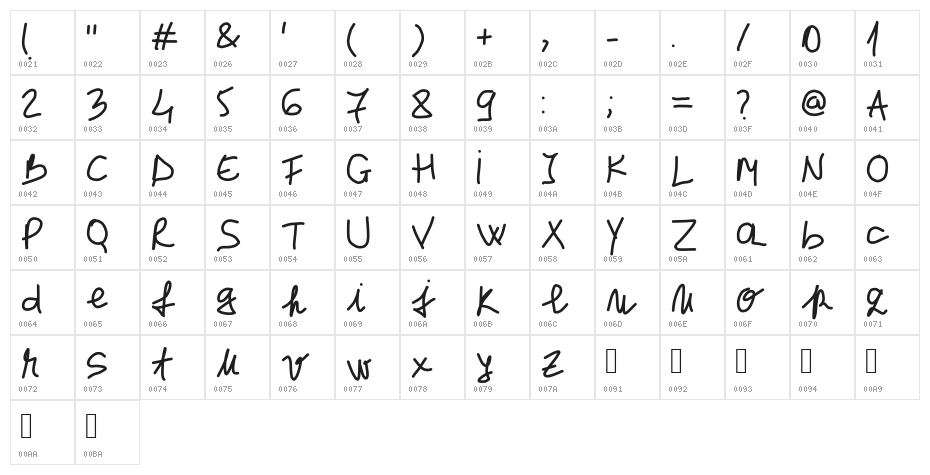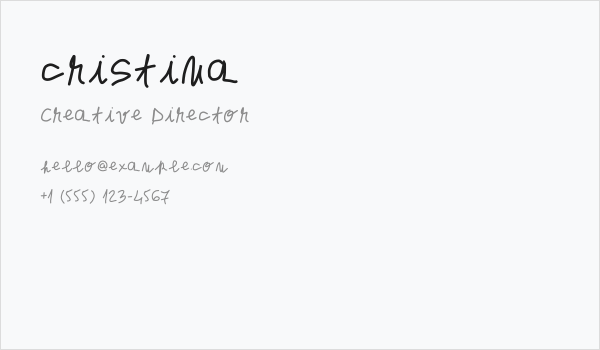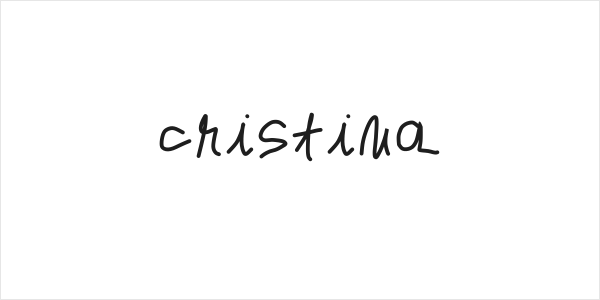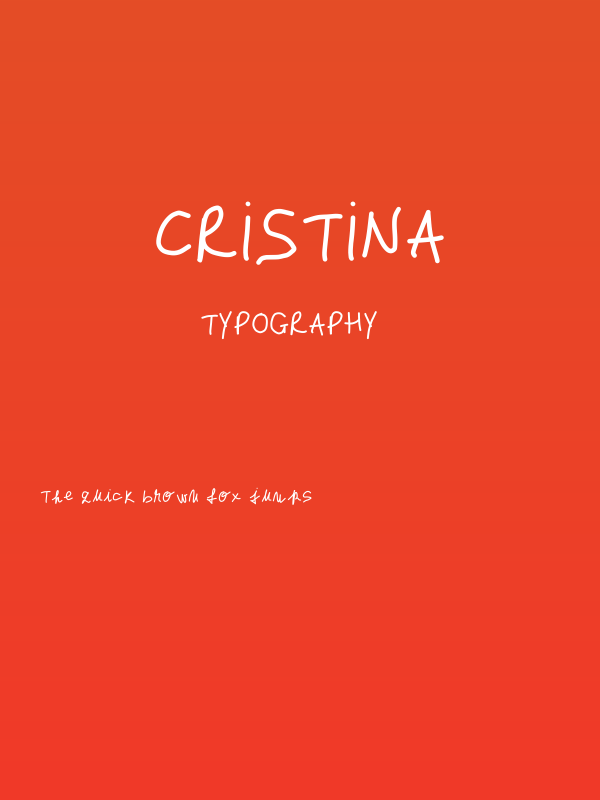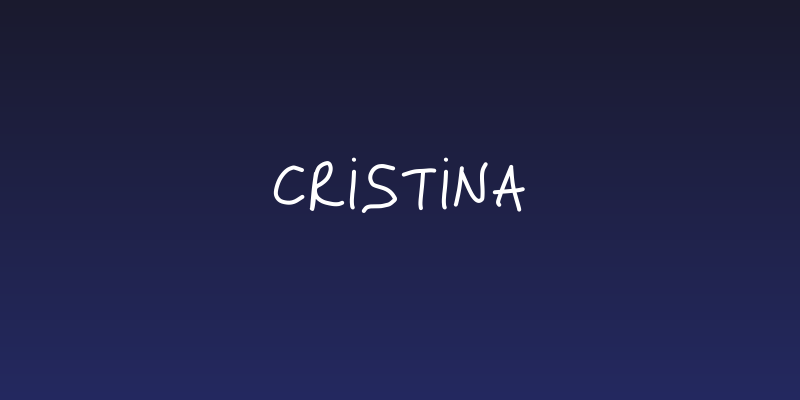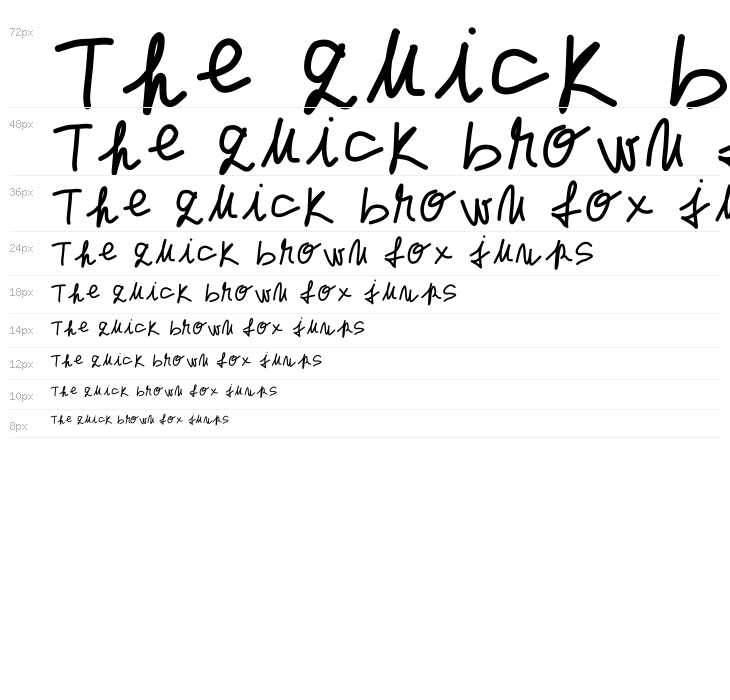
cristina Font
cristina Description
This font features a playful and casual handwritten style, characterized by its uneven strokes and slightly irregular letterforms. The uppercase letters are bold and dynamic, with a noticeable slant that adds a sense of movement. The lowercase letters maintain a consistent flow, enhancing the handwritten feel. Numbers are clear and legible, while special characters are creatively integrated, maintaining the overall aesthetic. This font exudes a personal touch, making it ideal for projects that require a friendly and approachable vibe.
Overall StyleCasual, Playful
Use CaseLogos, Invitations, Posters
Proposed ProjectsIdeal for greeting cards, personal branding, casual invitations, and creative posters.